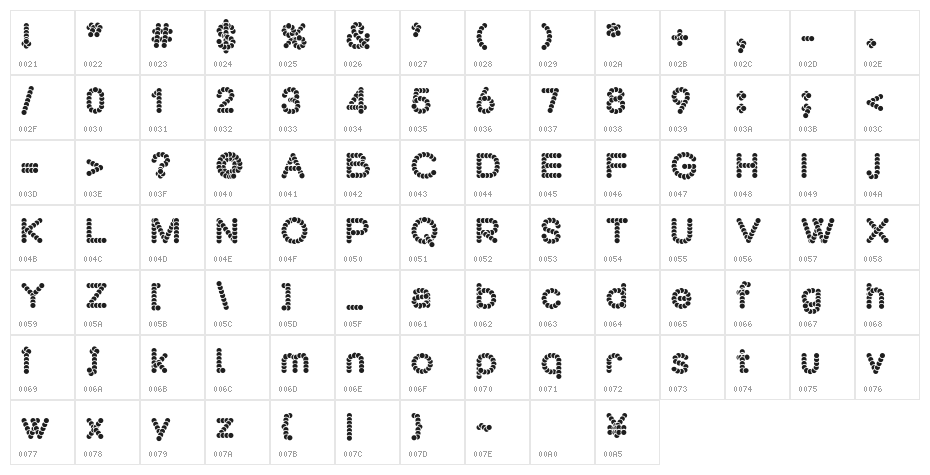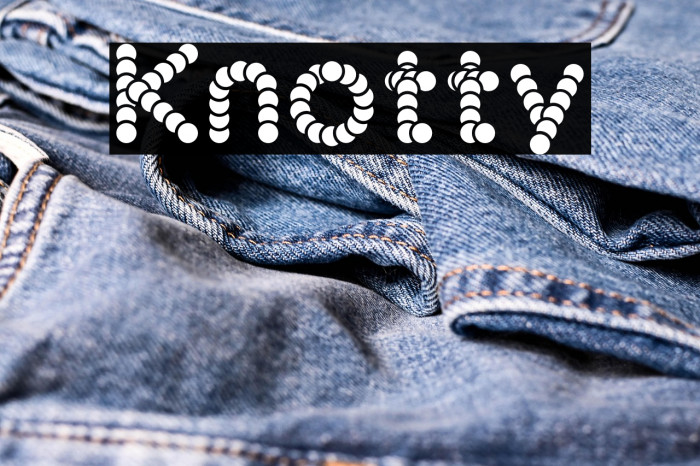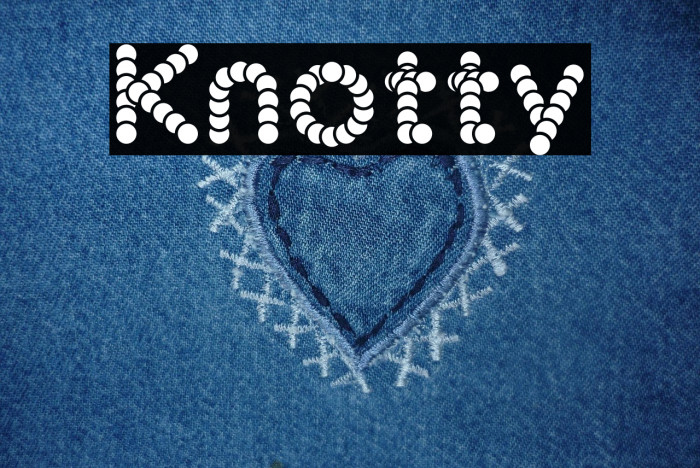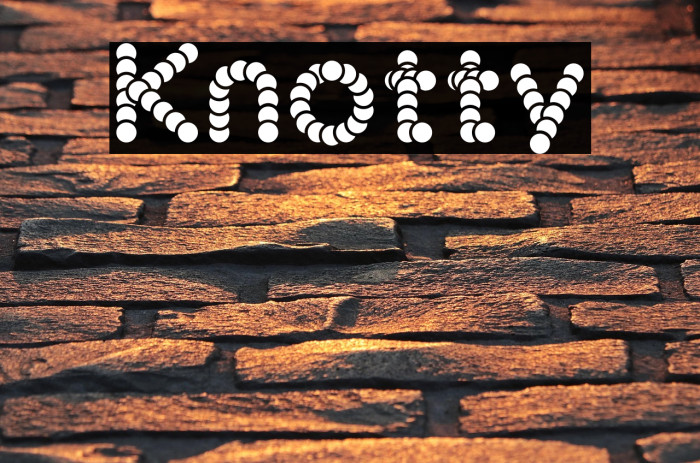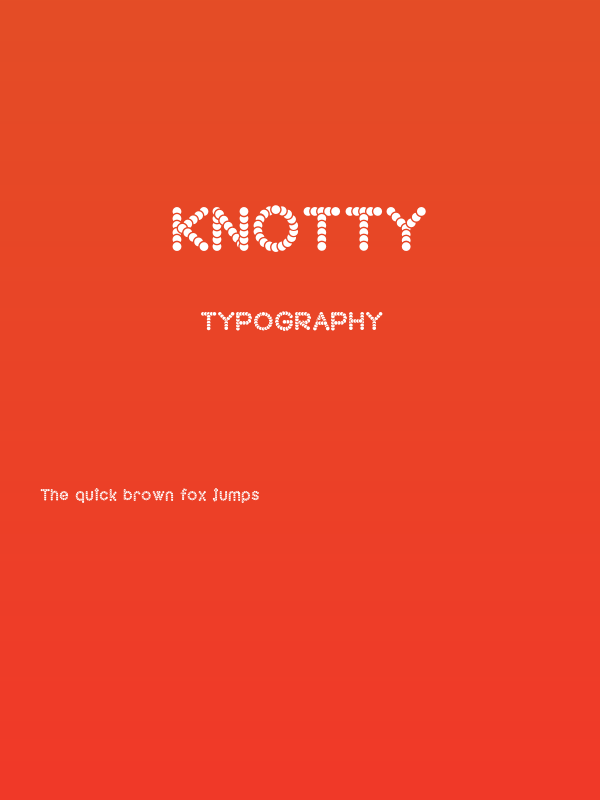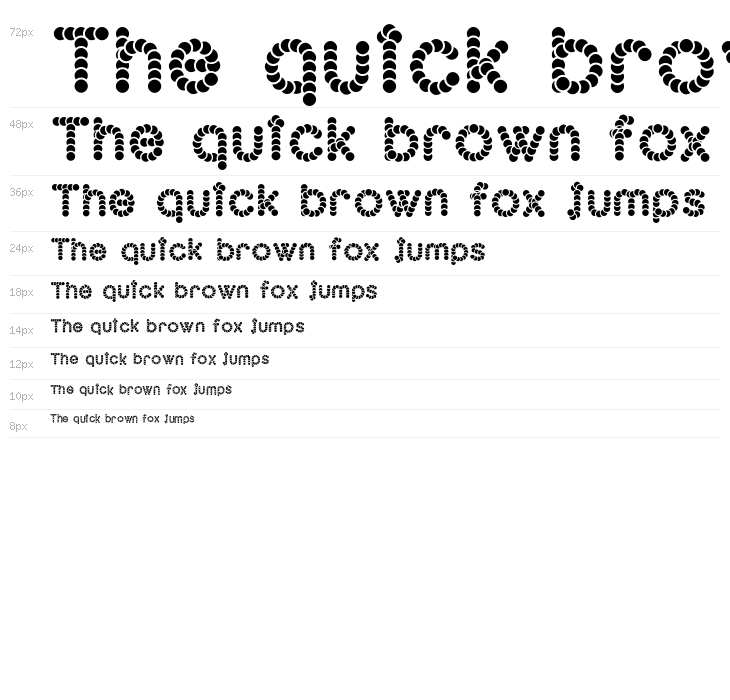
Knotty Font
Knotty Description
This font features a unique and playful design, characterized by its circular, knot-like patterns forming each character. The letters and numbers are constructed from a series of interconnected loops, giving the font a textured and three-dimensional appearance. The style is consistent across uppercase, lowercase, numerals, and special characters, maintaining a cohesive look. The font's decorative nature makes it stand out, ideal for creative and artistic projects. Its bold and intricate design captures attention, making it suitable for headlines or display purposes where a distinctive and eye-catching typeface is desired.